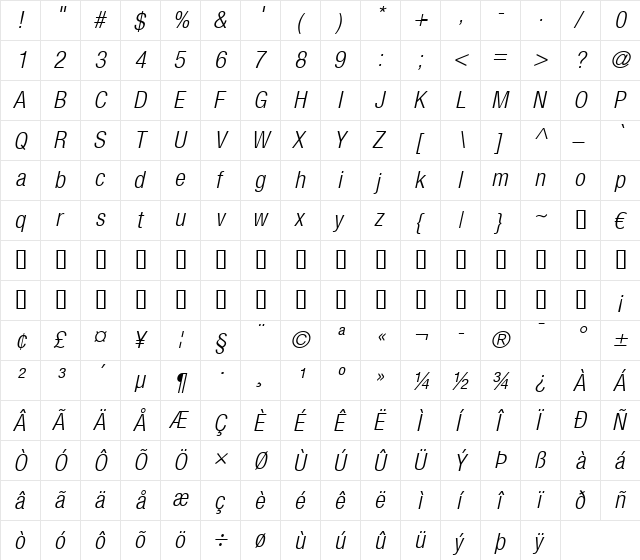
HelveticaNeue LT 47 LightCn Oblique Font Preview
Design Context for HelveticaNeue LT 47 LightCn Typeface
HelveticaNeue LT 47 LightCn offers clean, dependable letterforms without strong stylistic allegiance, making it a practical choice for designers who need flexibility. The dynamic lean of this cut emphasises speed and emphasis in any layout. Its slender proportions lend an understated elegance to any composition.
Pro Tip: Use HelveticaNeue LT 47 LightCn for emphasis, pull quotes, and subheadings where its slanted energy can add rhythm to the layout.